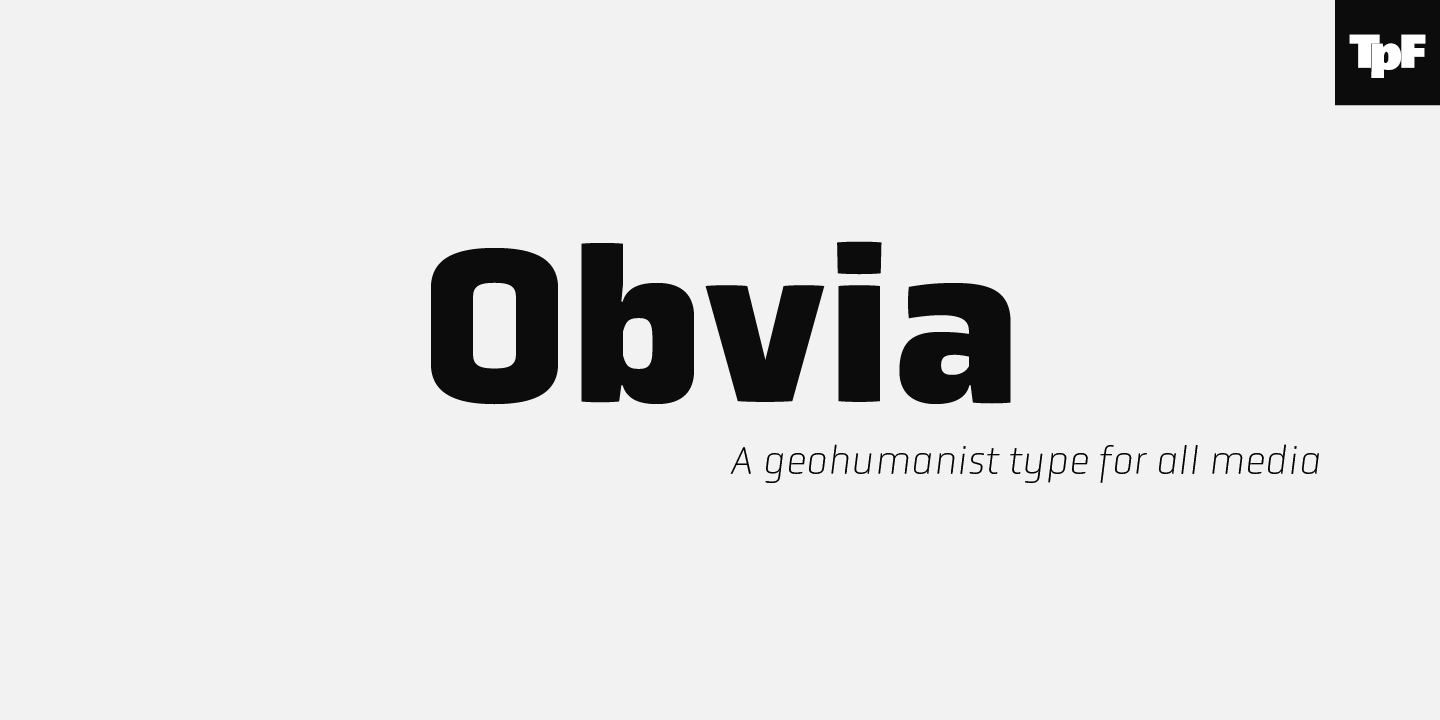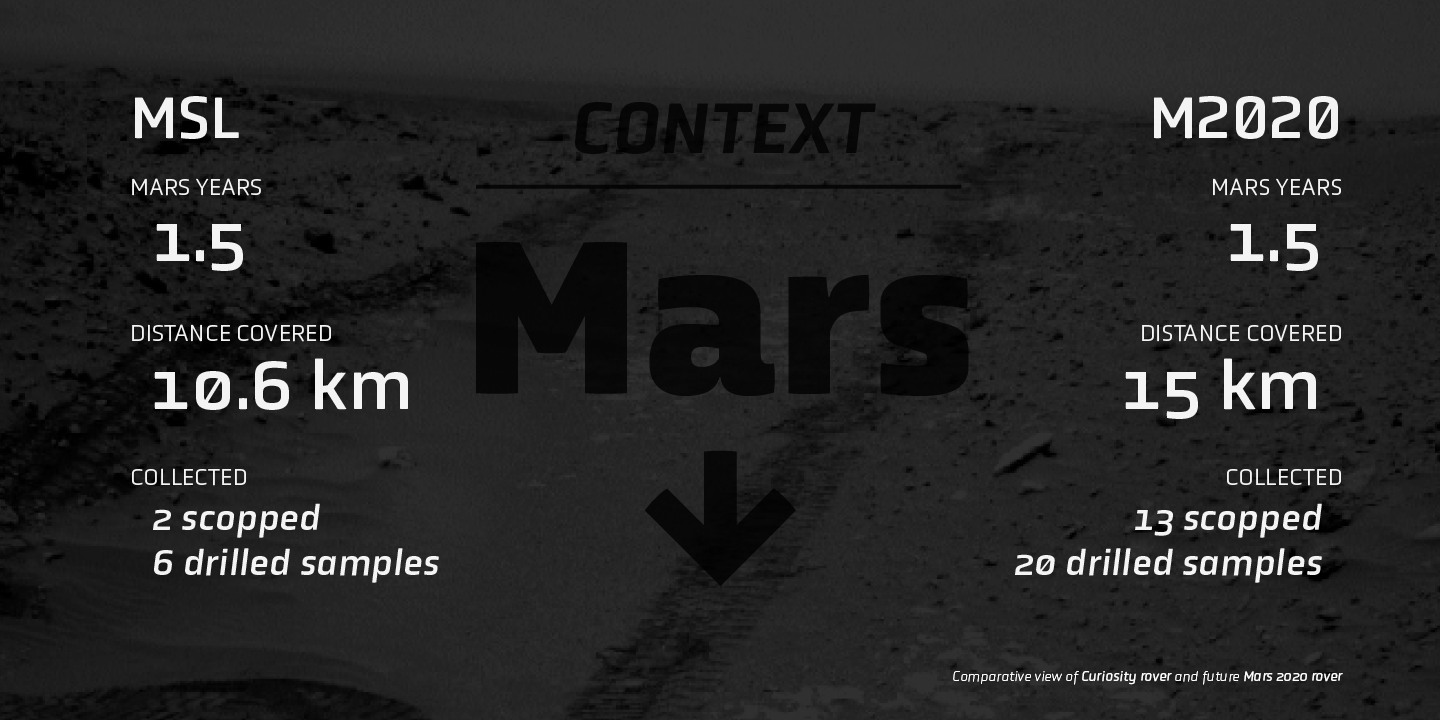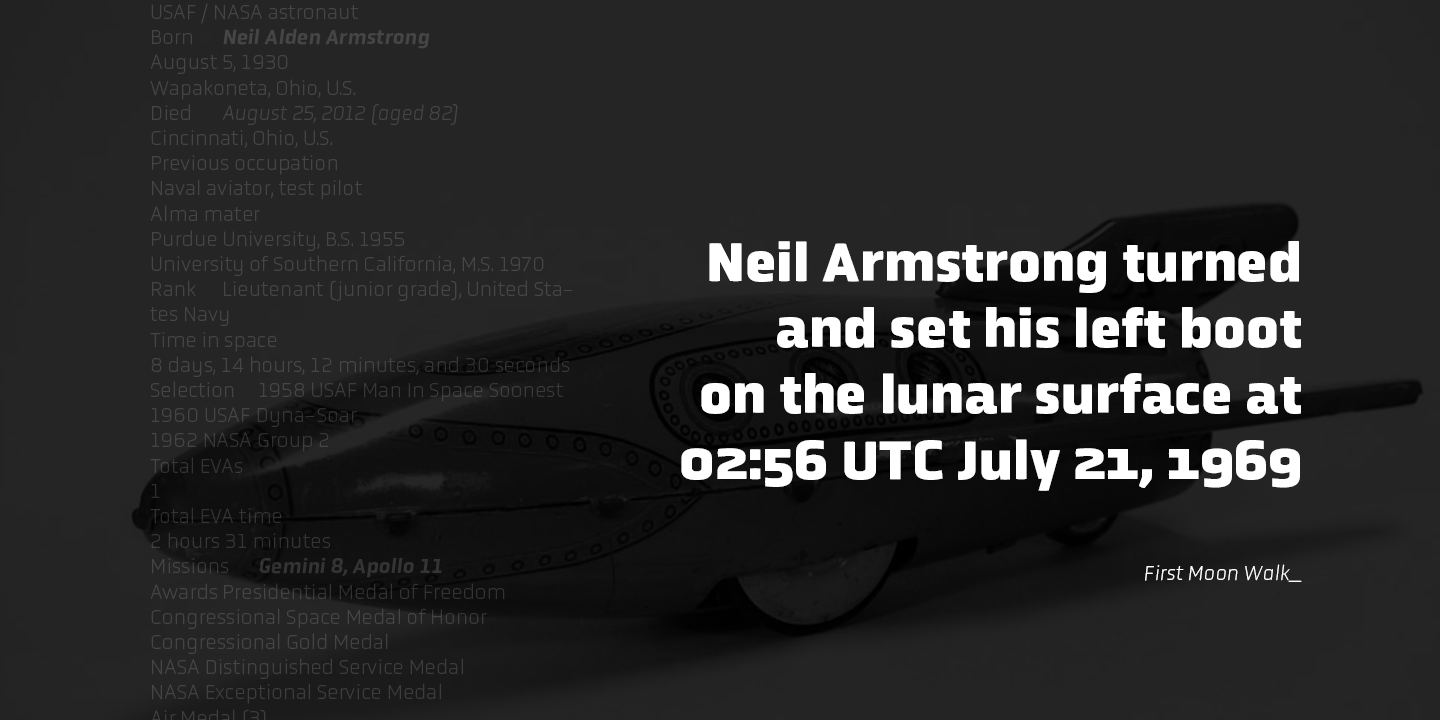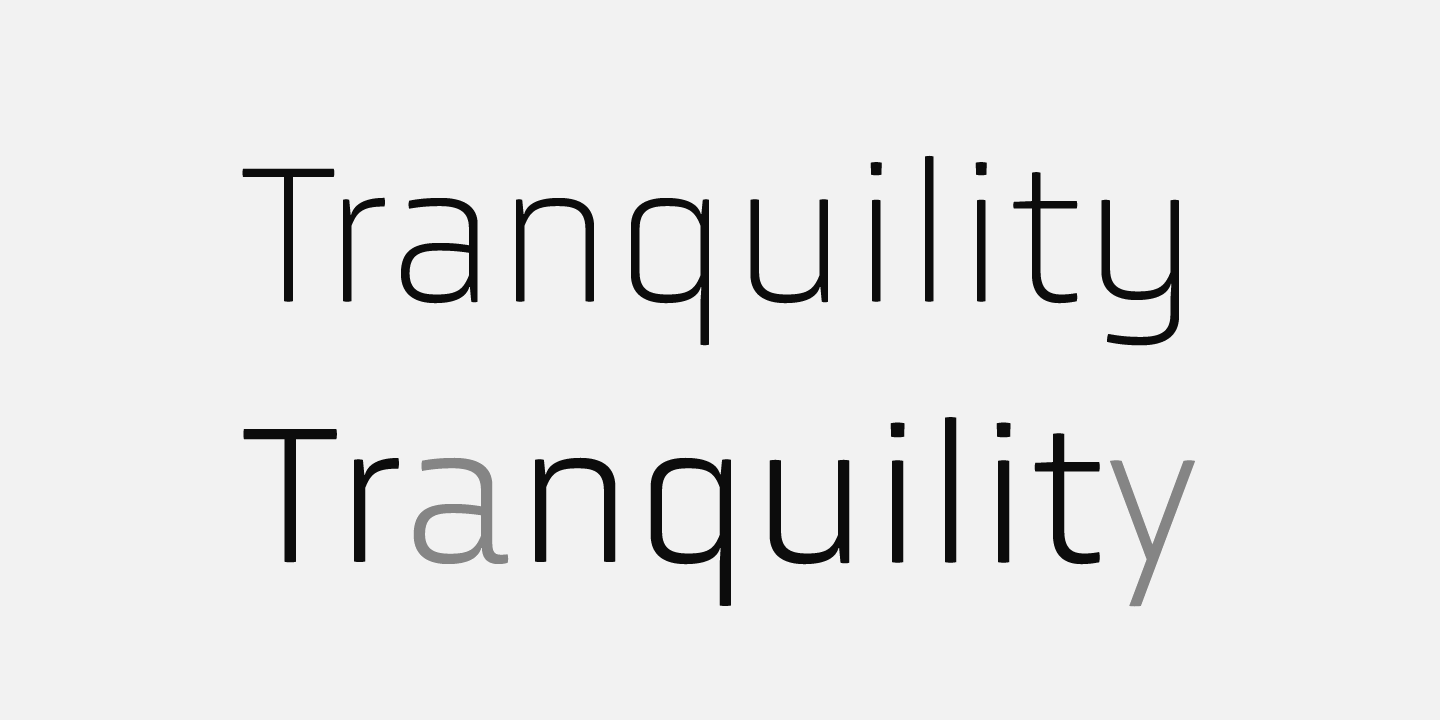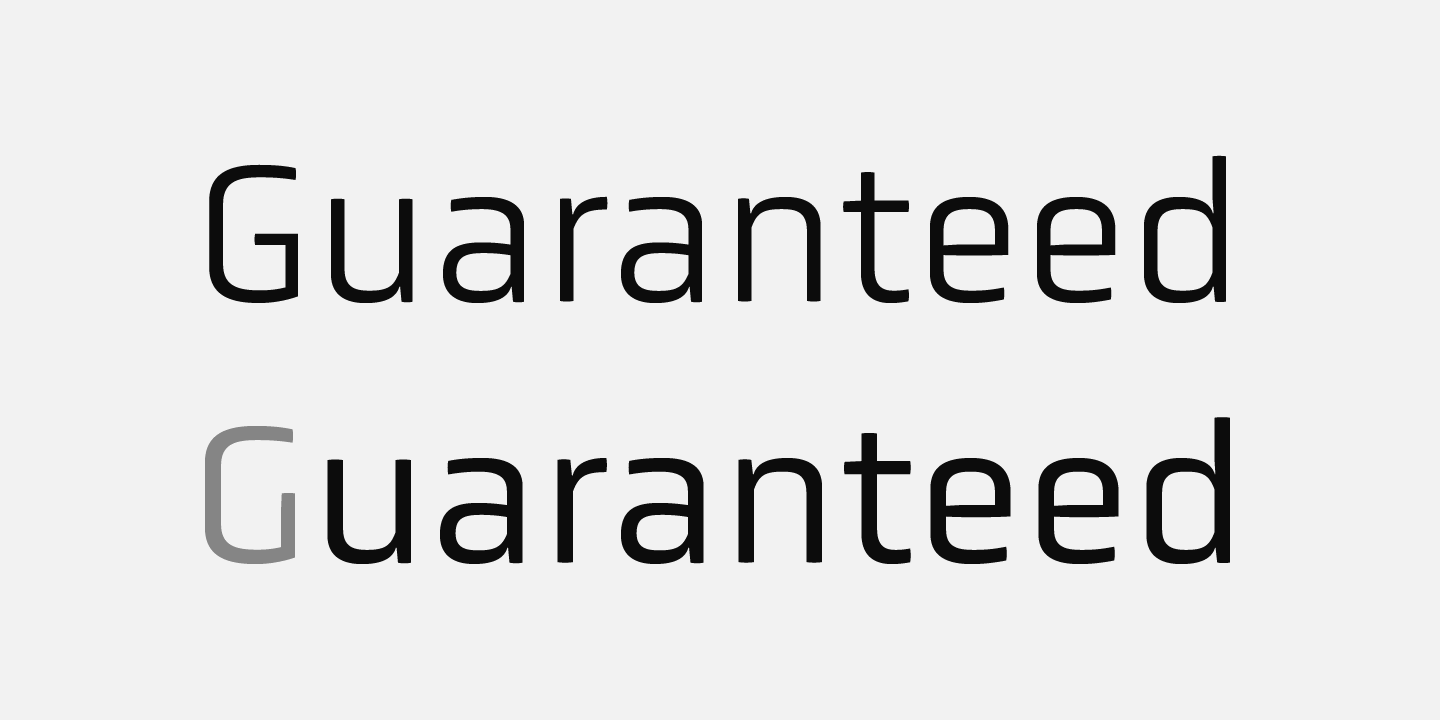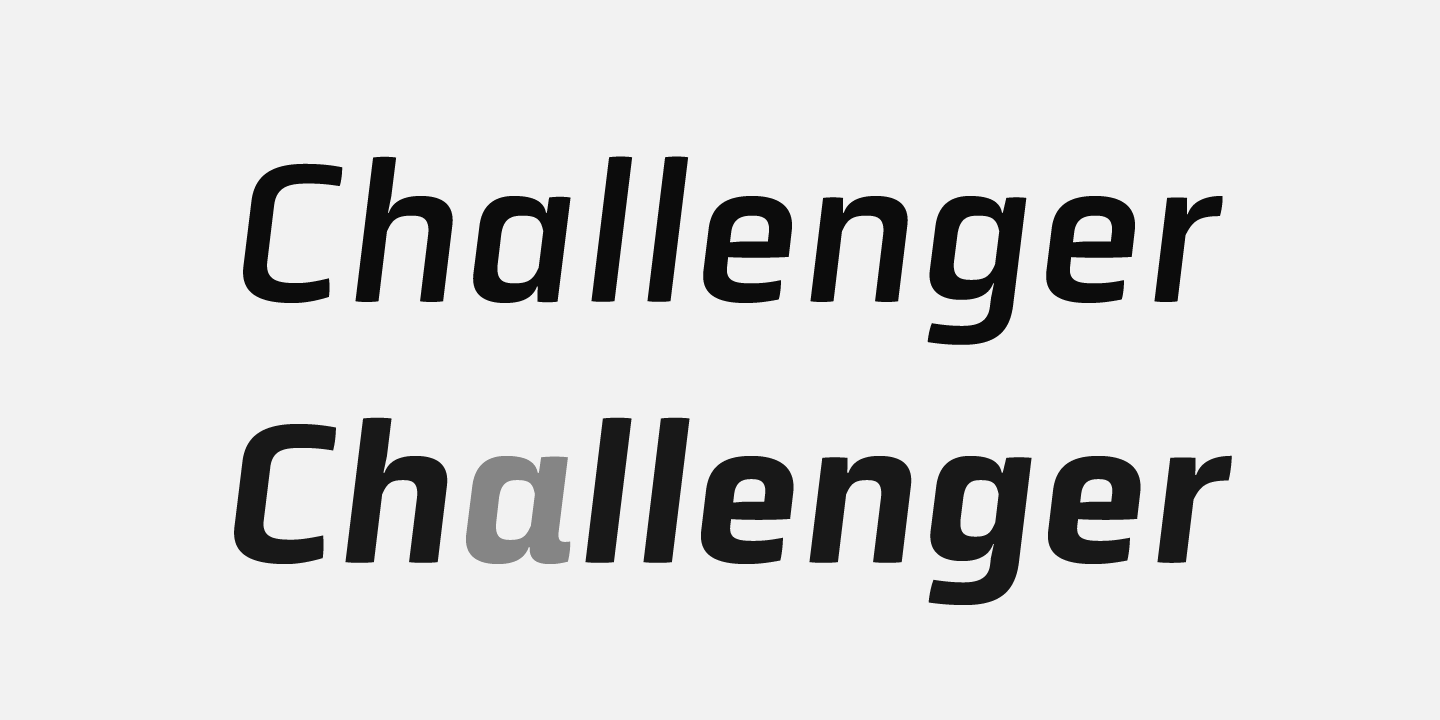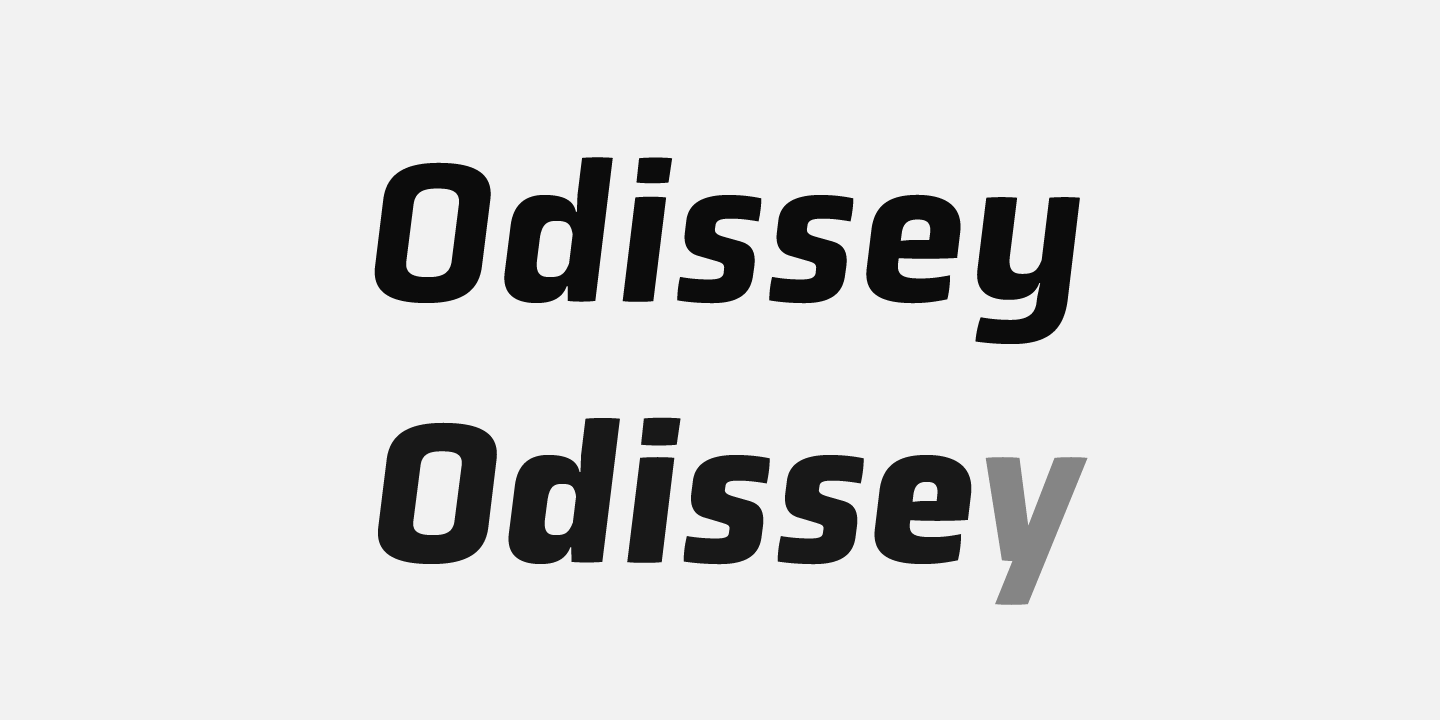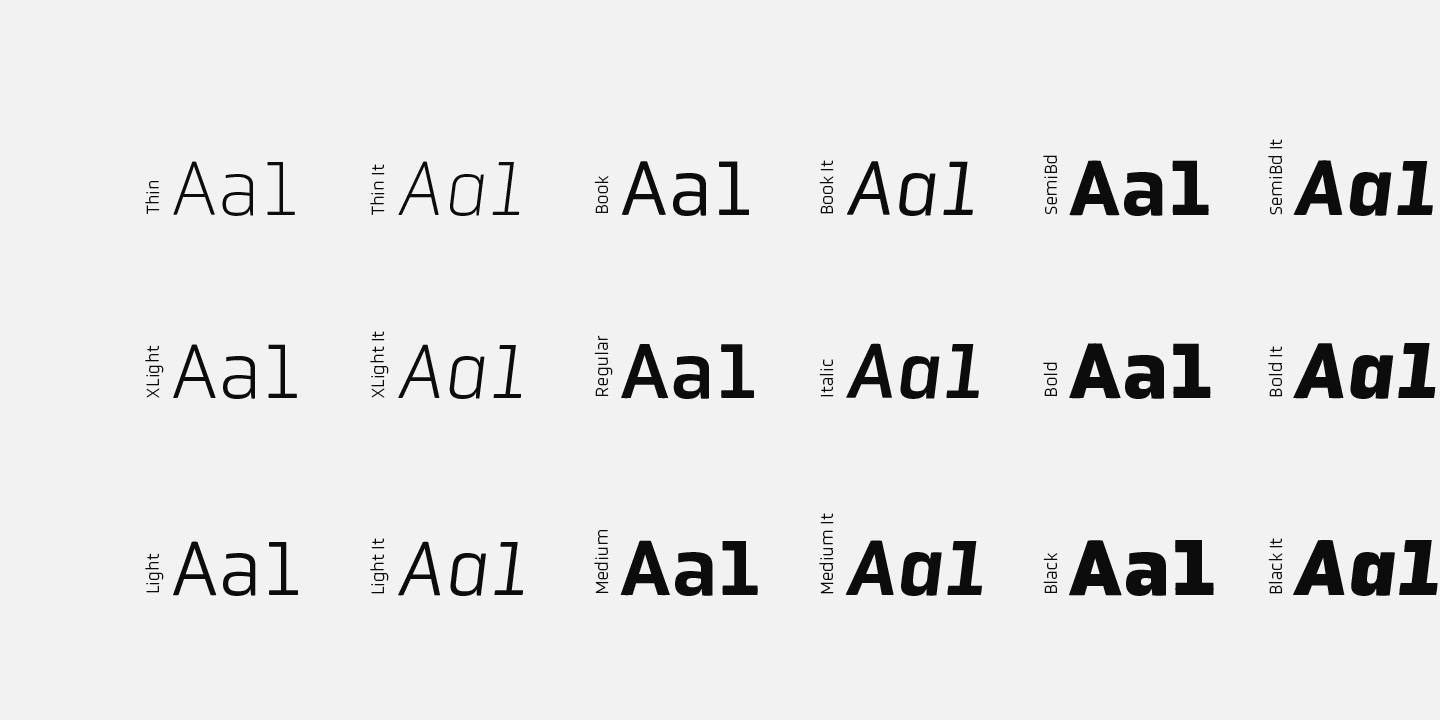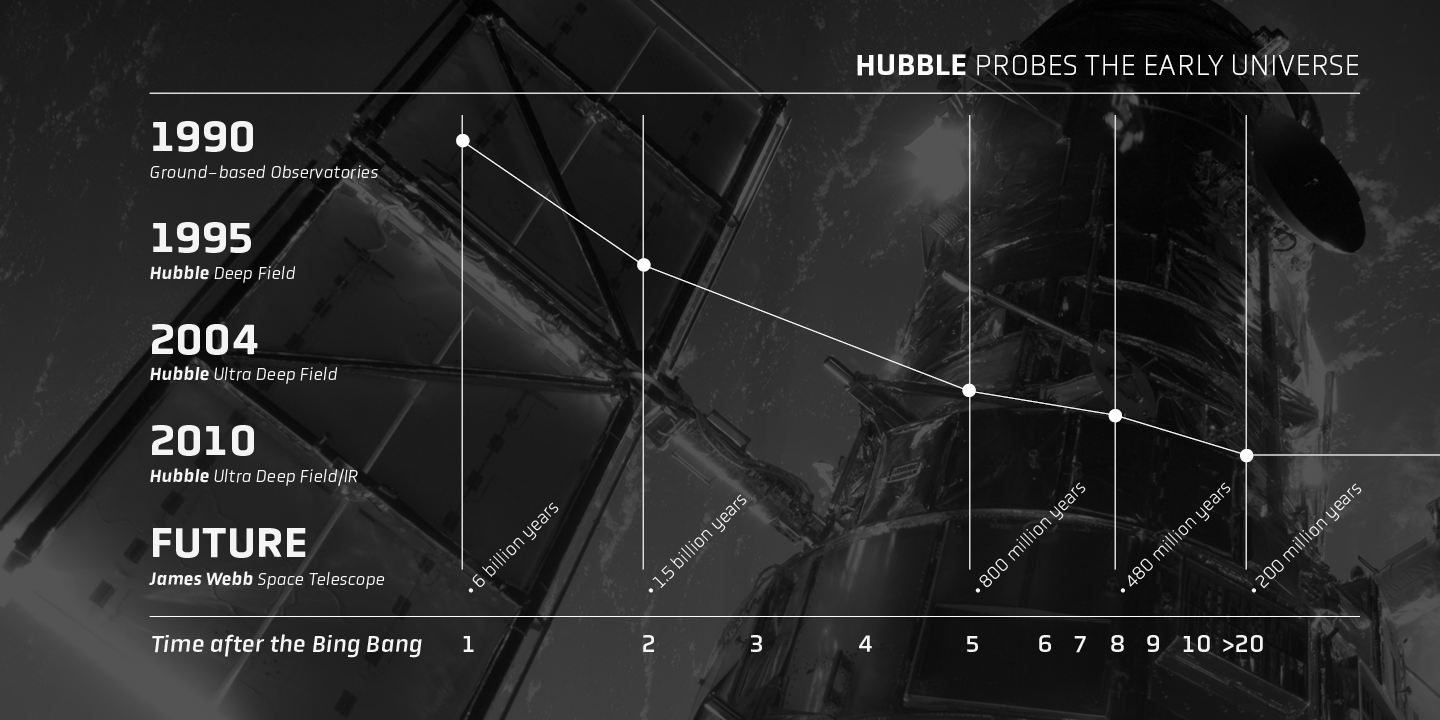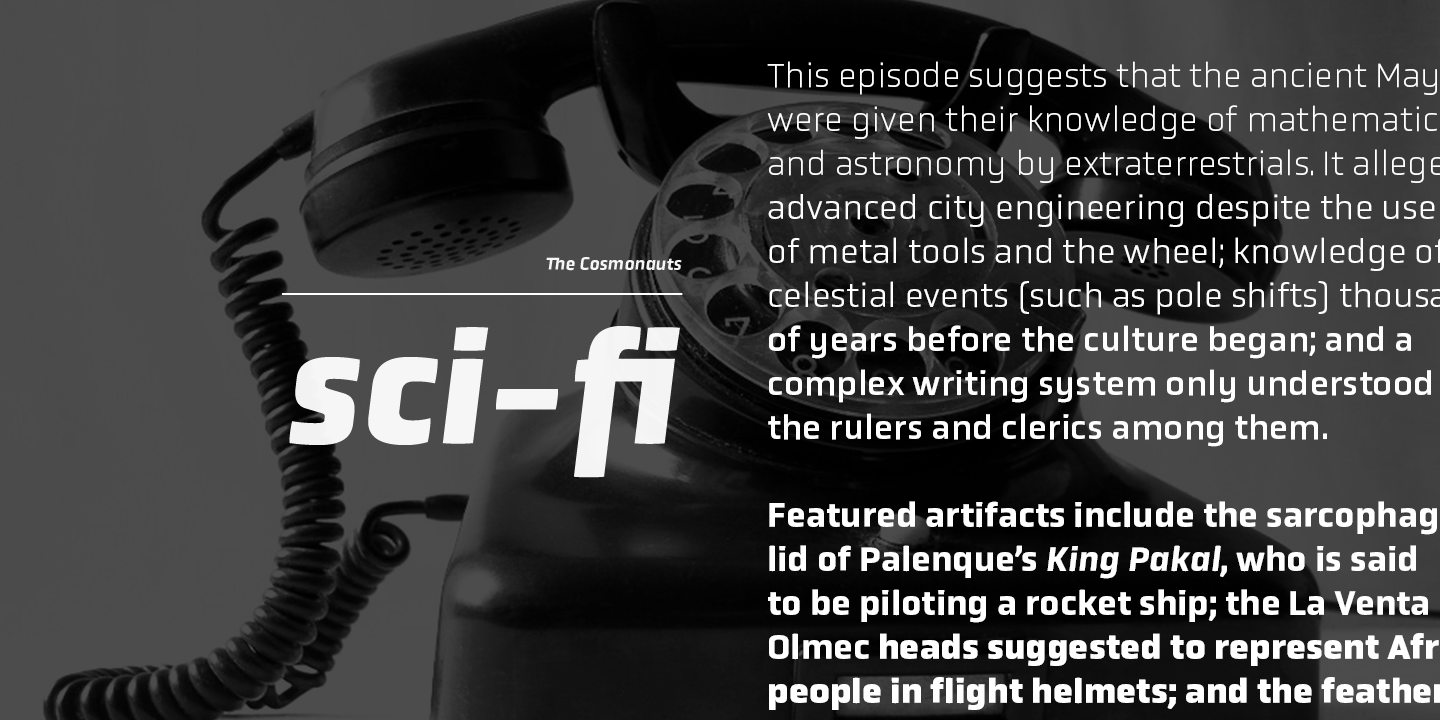
Obvia Family (18 fonts)
Obvia appeared as a result of direct observation on typefaces classified as geometric and the plan to explore for the first time width axes - to be published soon - expanding its usability.
The idea behind Obvia’s design was to create a distancing from geometrically pure shapes, in this case, square shapes. Then some details were added, such as subtle inktraps, concave endings of the stems and carefully drawn alternate characters, giving a ‘geohumanist’ tone to the font.
This first family of Obvia has 9 weights ranging from Thin to Black with their respective italics, delivering a strong typographic identity, from the paper to the pixel.